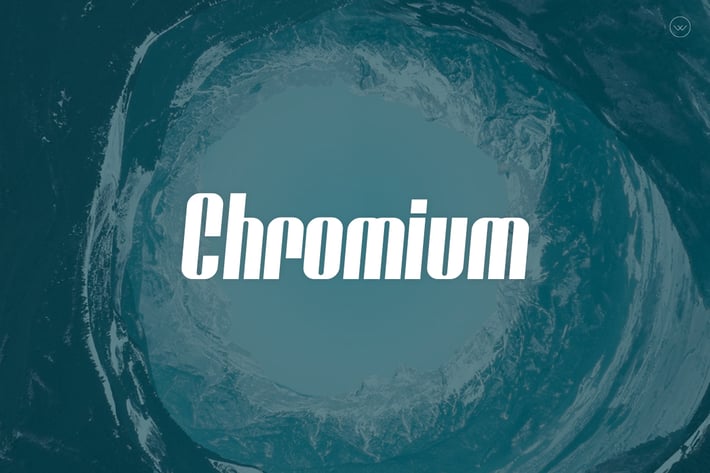
Chromium Modern Font Family
Chromium is a neat and modern display font.
No matter the topic, this font will be an incredible asset to your fonts’ library, as it has the potential to elevate any creation.
This beautiful and Creative Font suitable for Film Posters, headlines, Block letters, Subheadings, Logo Designs, Big Banners Decorative Typography, and Web Designs.